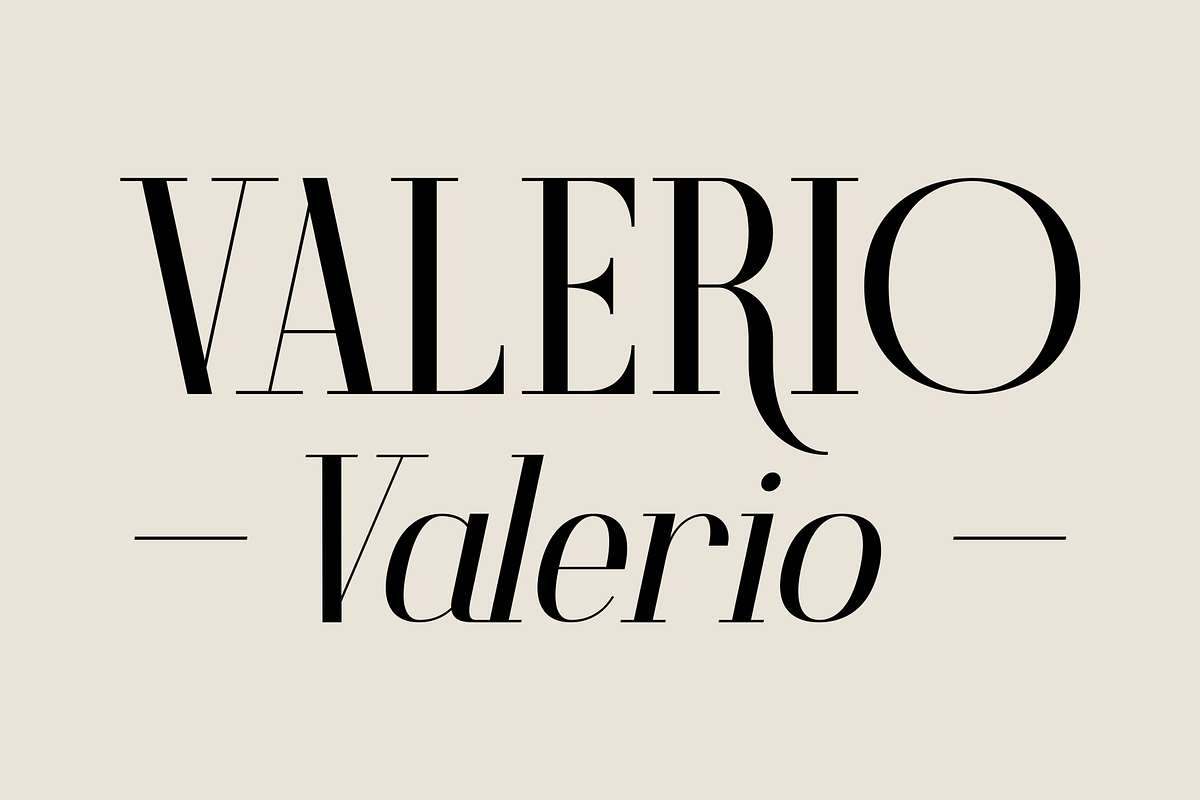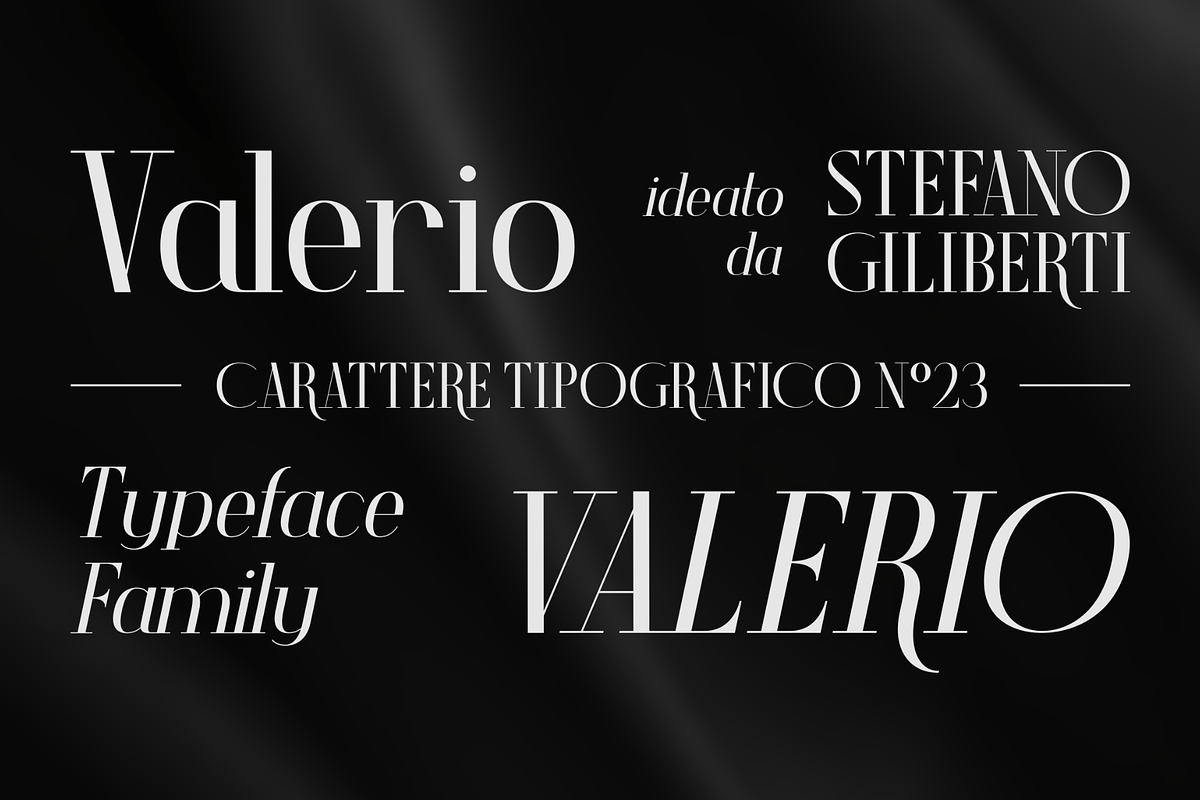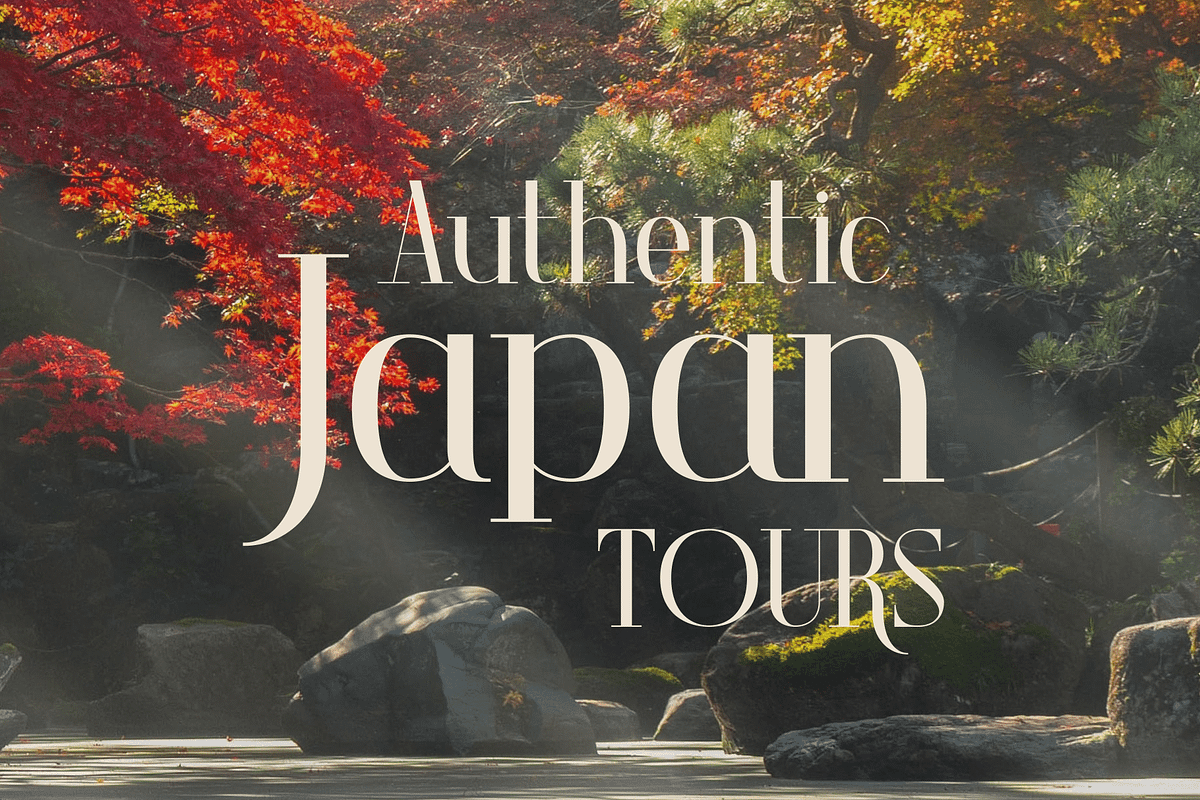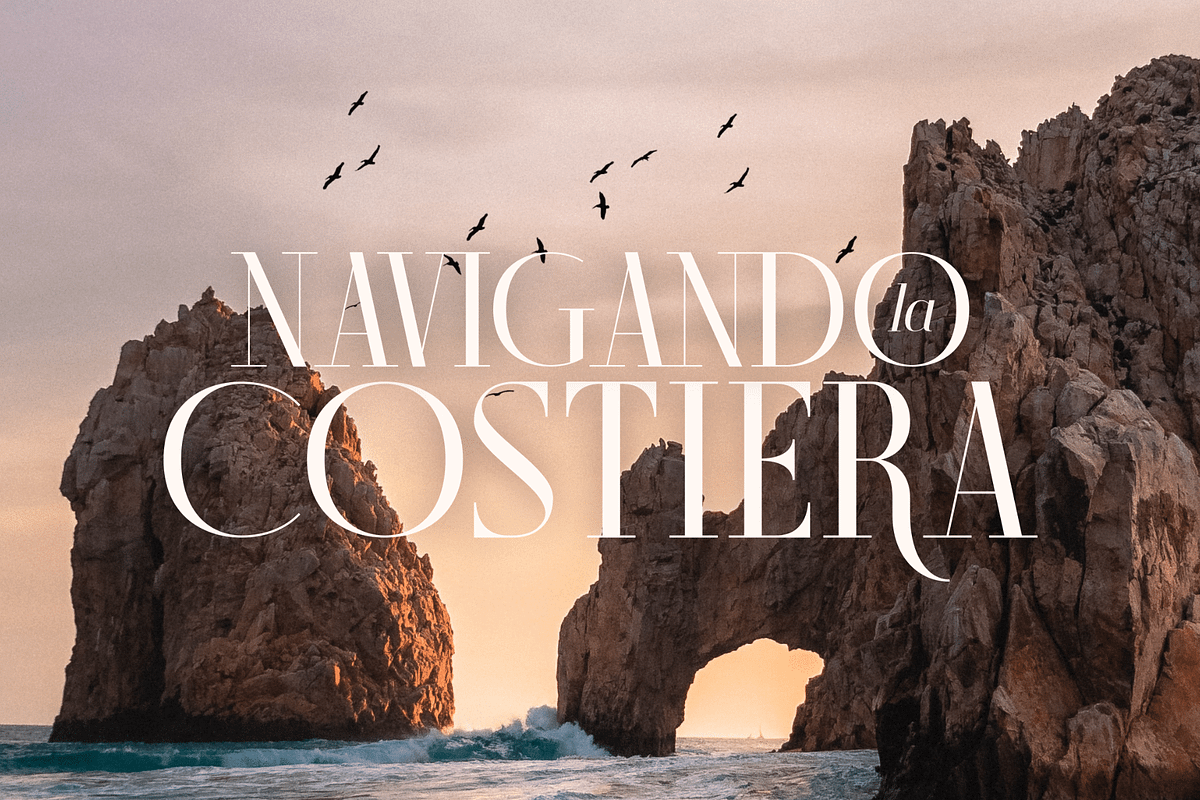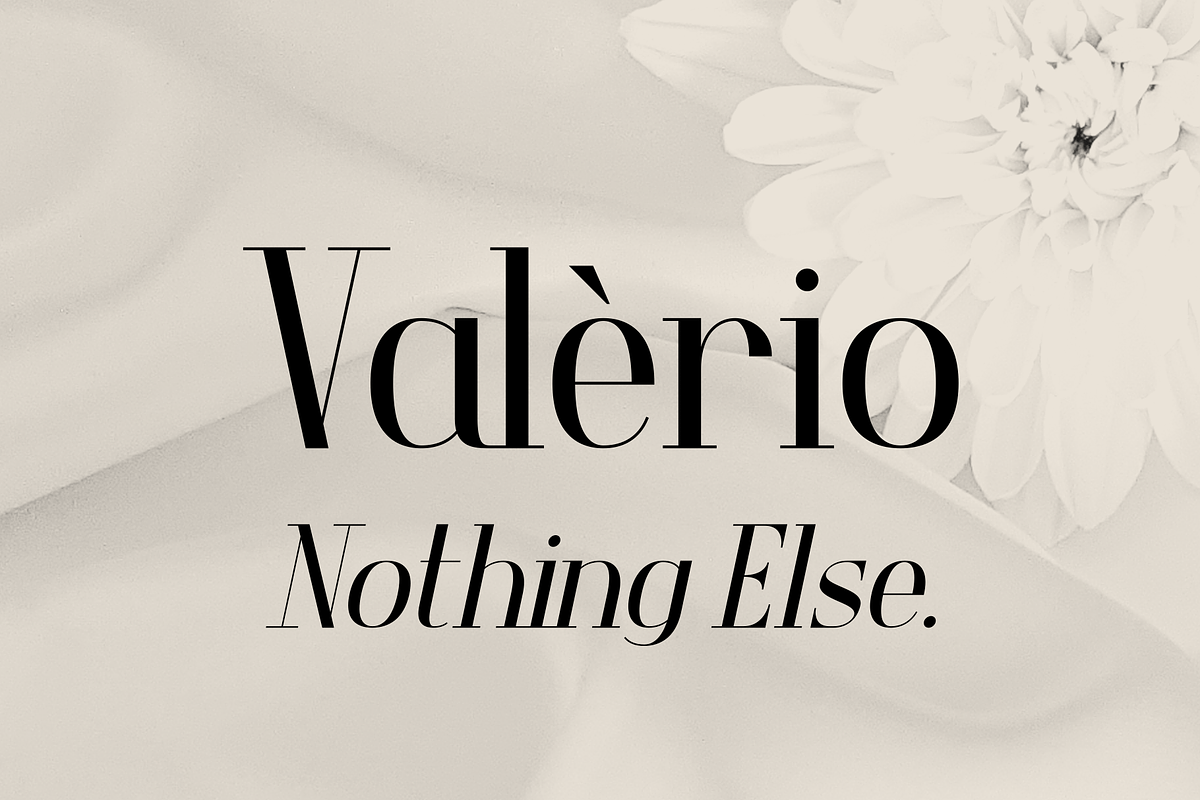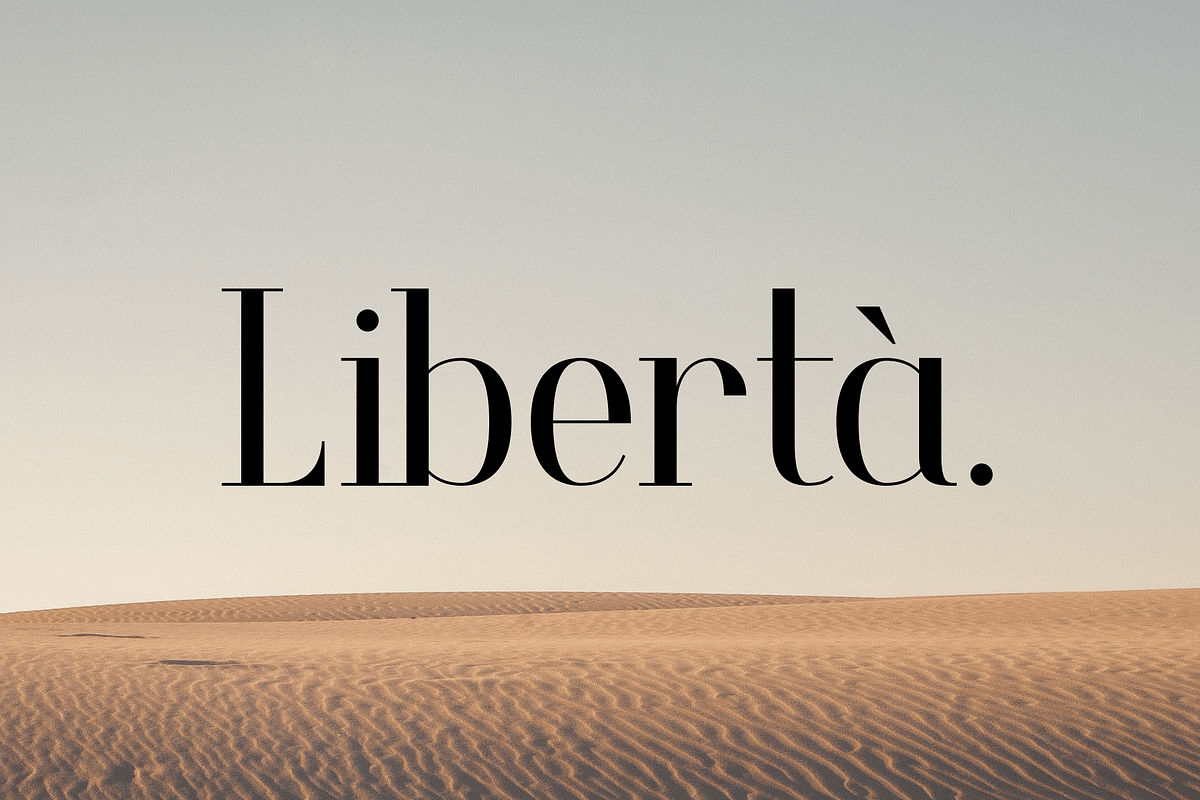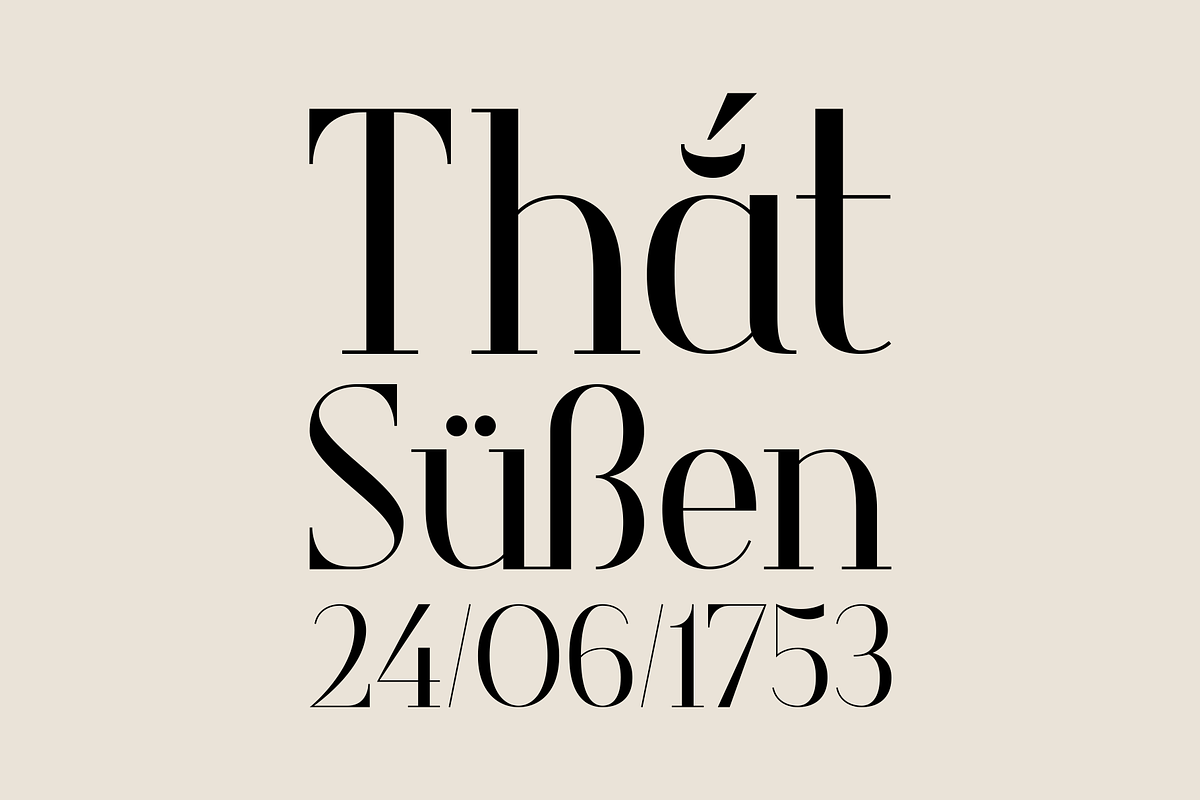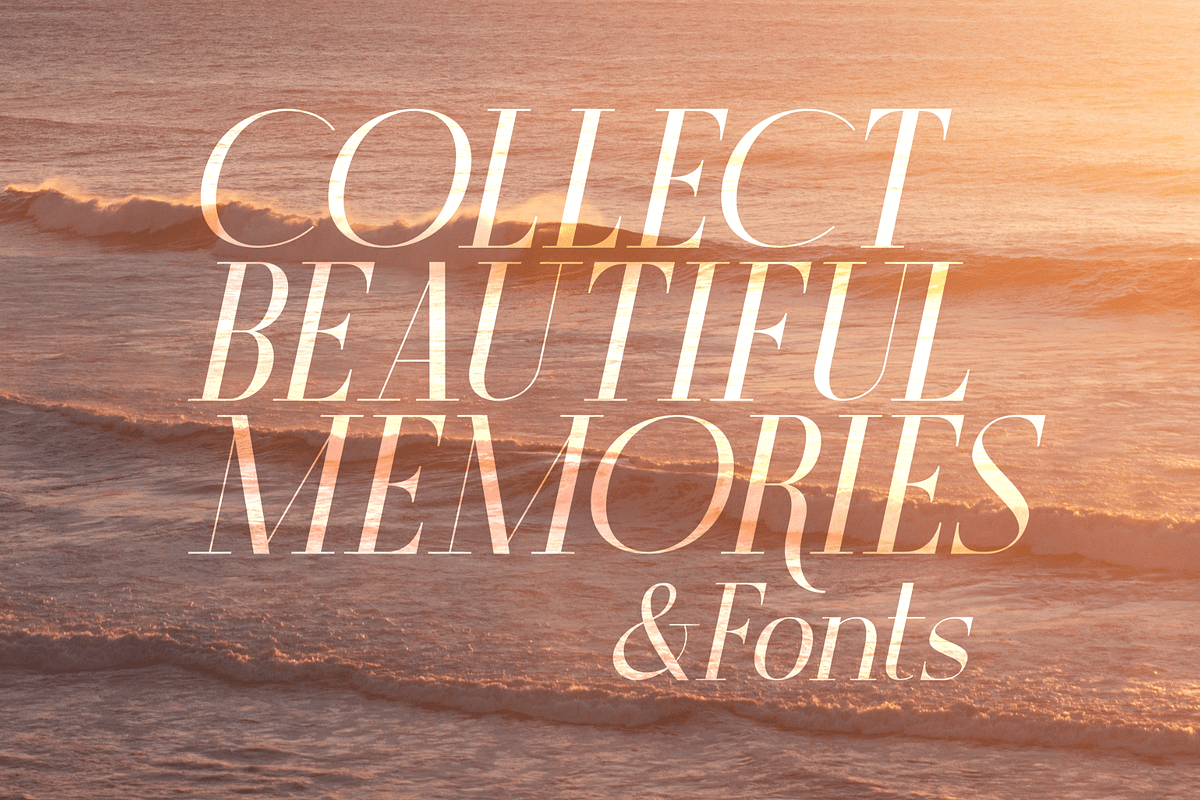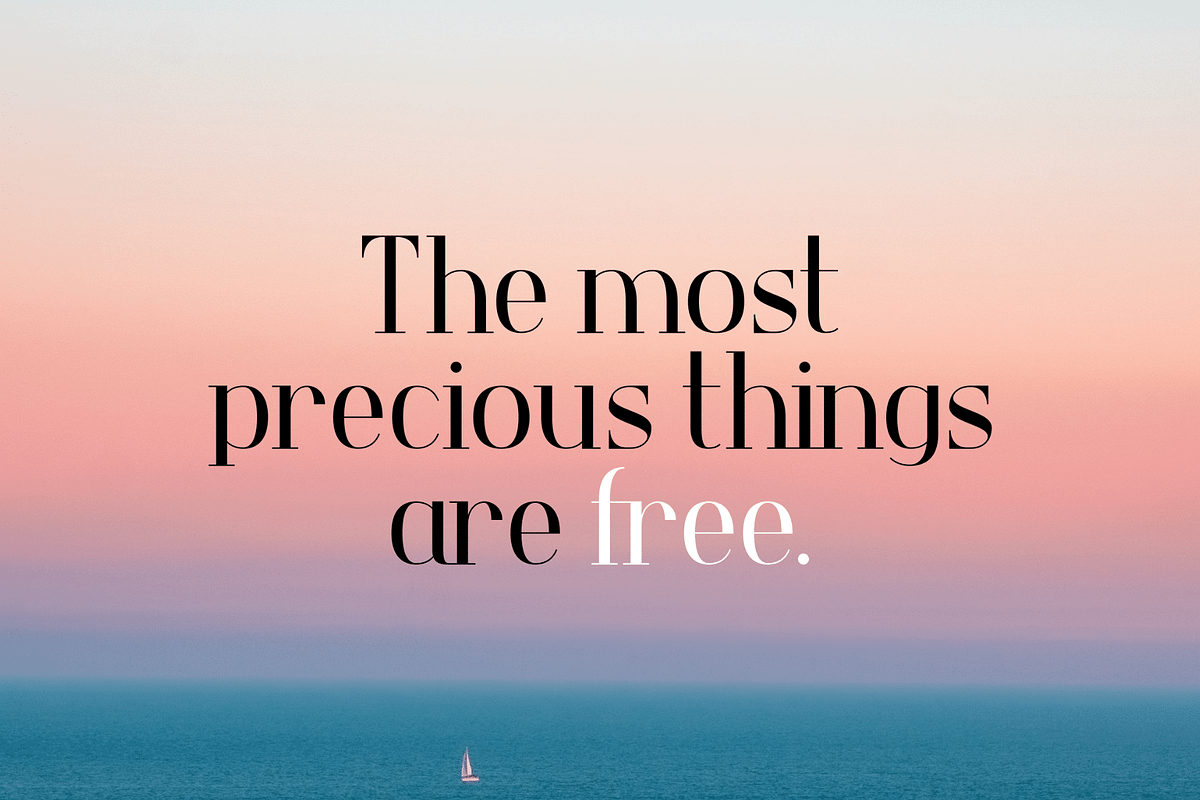
Valerio – Font Family
Valerio is the font family to use if you wish to convey your ideas with elegance and a pinch of eccentricity without being out of touch with modernity.
• 117 Languages • 504 Glyphs • Italicized